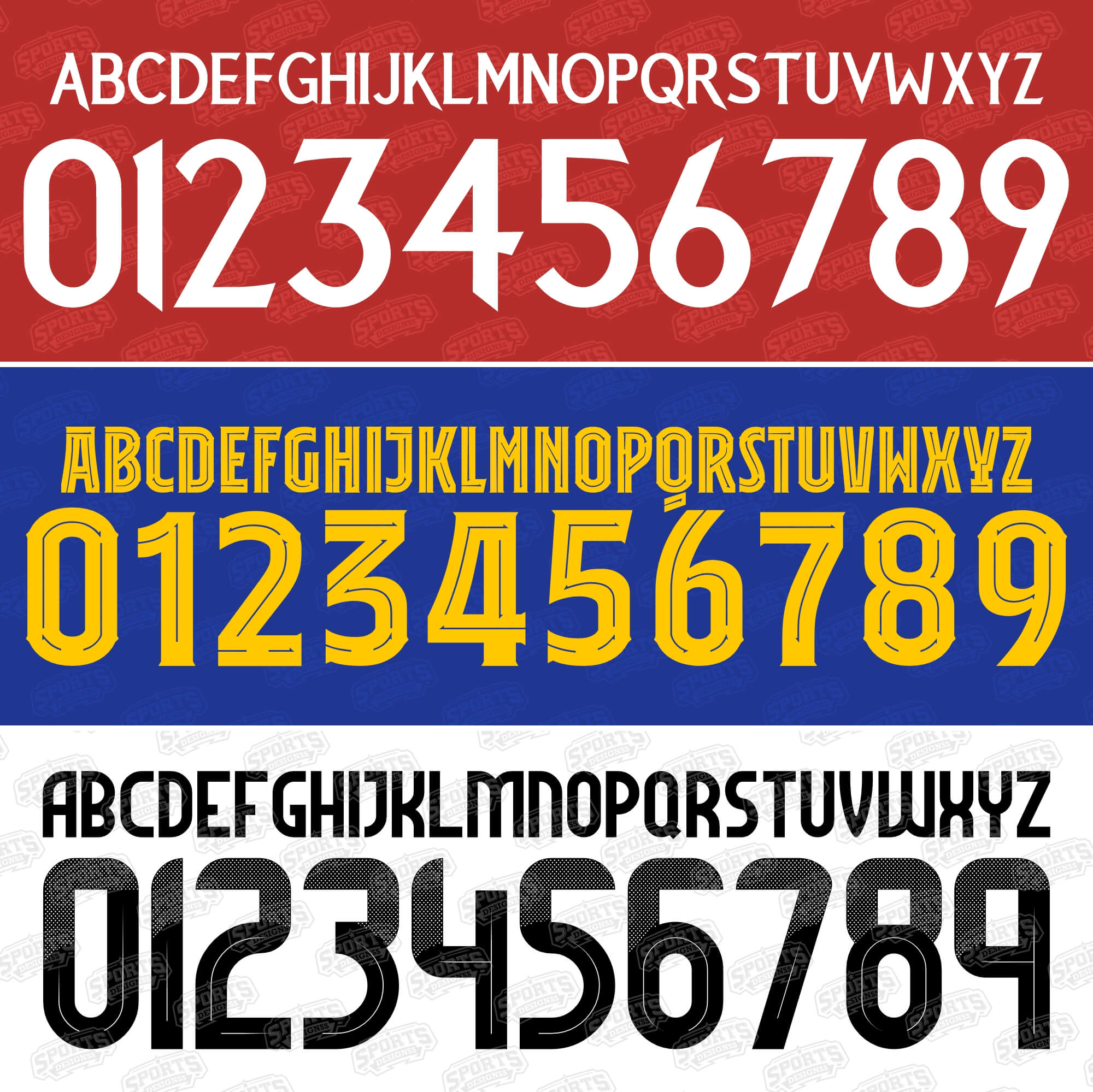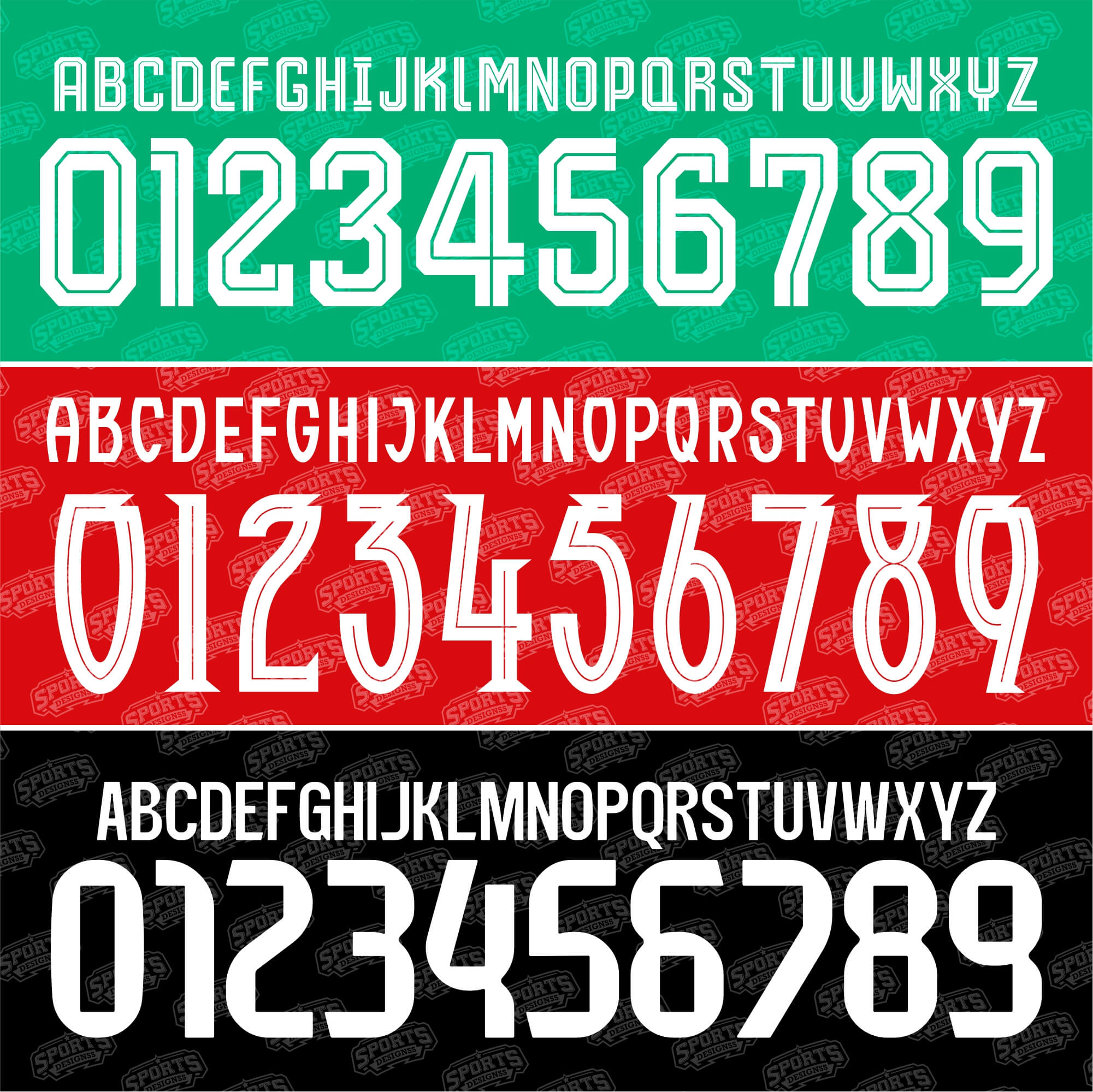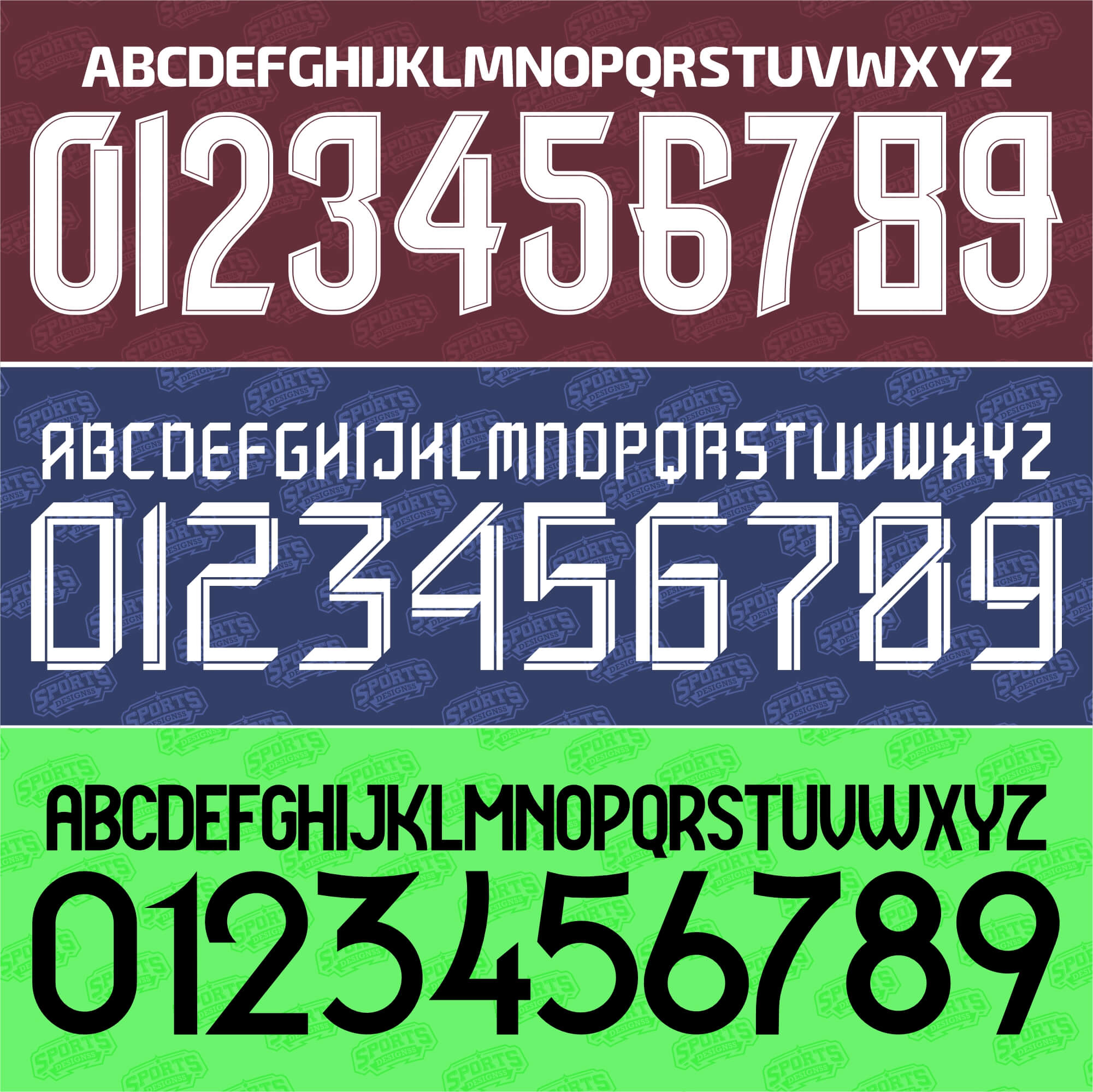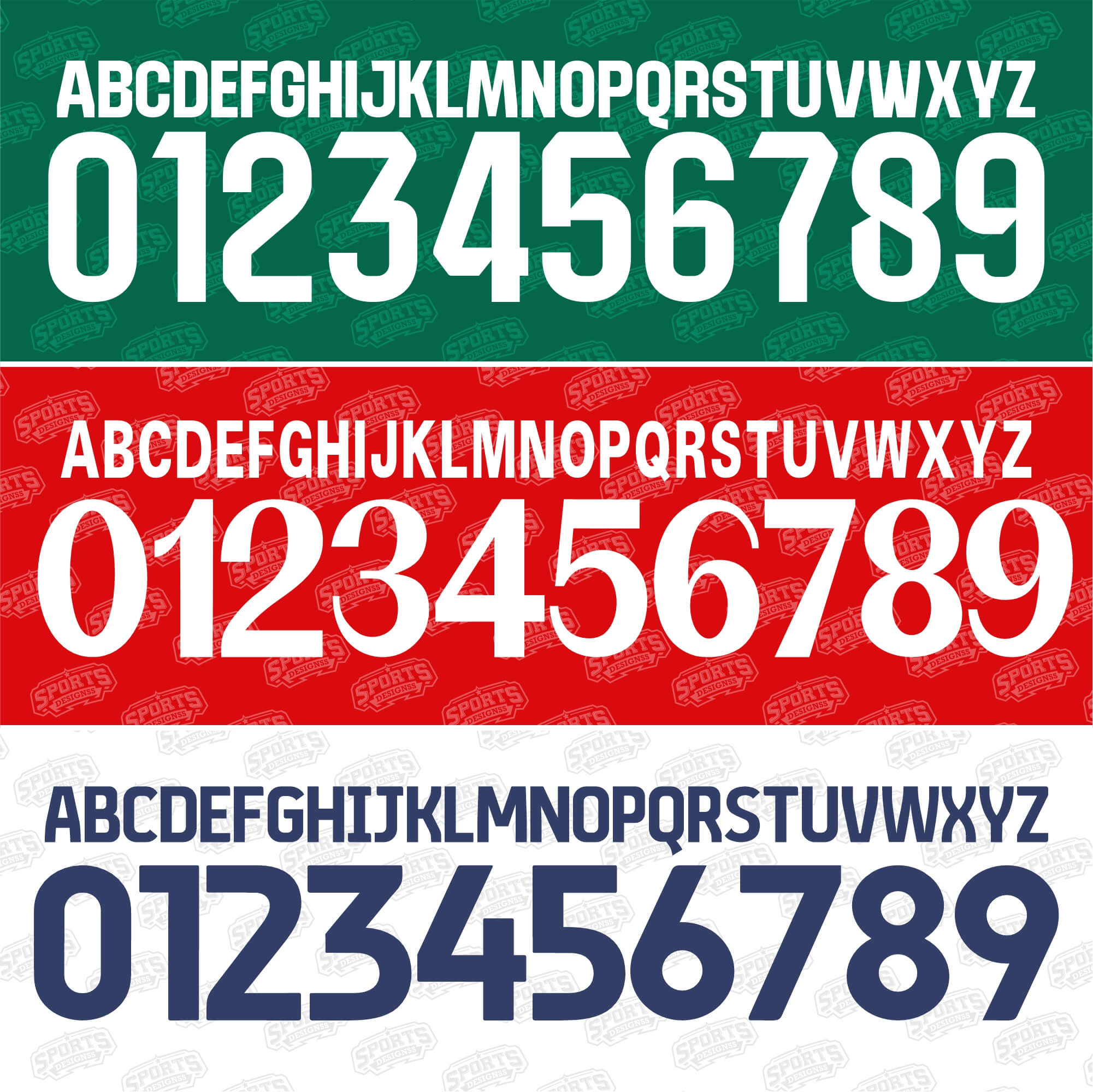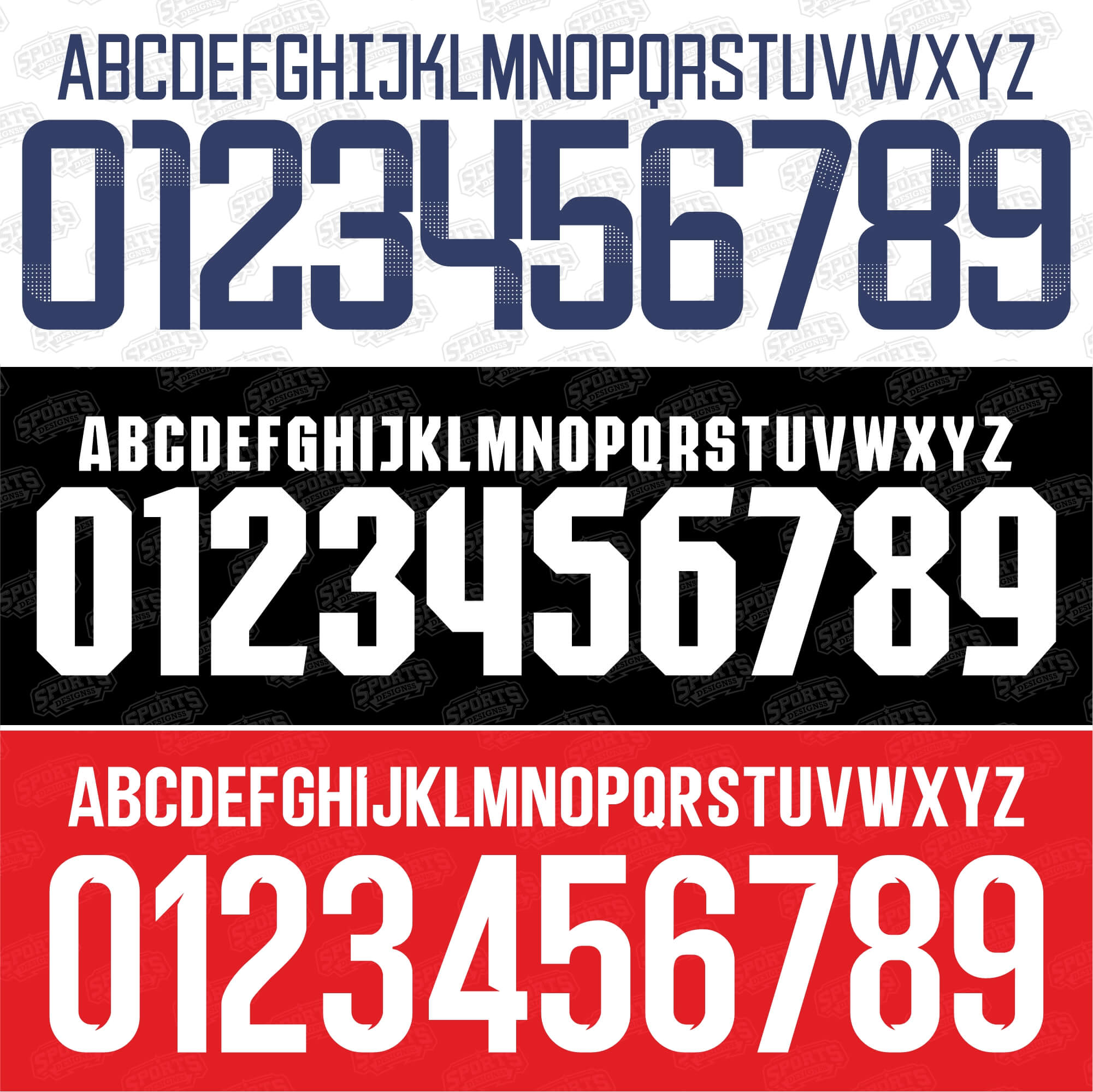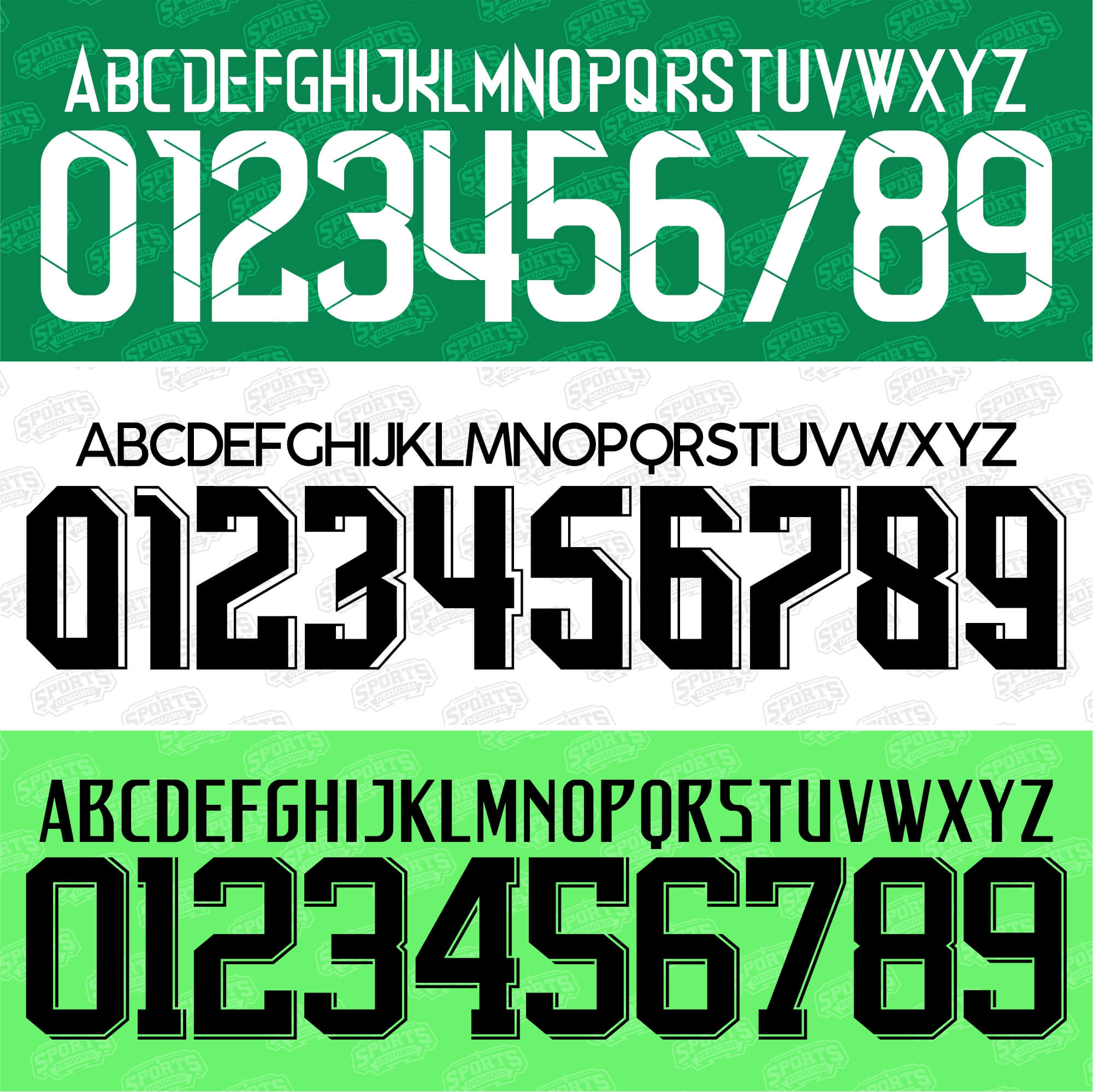
Get 20+ premium soccer fonts (2025-26 edition) in one powerful bundle! Perfect for jersey name numbers, World Cup 2026 shirts, football posters, varsity sports, and digital designs.
Includes fonts inspired by Barcelona, Real Madrid, Manchester United, Arsenal, Ajax, Juventus, Argentina, Portugal, Atletico Madrid, Sporting Lisbon, and more.
Eexclusive bundle of 20+ professional soccer and football fonts (2025-26 editions). Perfect for jersey name numbers, World Cup shirts, club kits, posters, varsity sports designs, and digital downloads, this pack brings together some of the most iconic football-inspired fonts in one collection.
📂 Fonts Included in This Bundle (2025-26 Edition):
This pack includes official-style fonts inspired by top clubs, national teams, and leagues around the world:
• Ferencvaros 2025-26 Football Font
• Ajax UEFA 2025-26 Font
• America Club 2025-26 Font
• Argentina 2025-26 Font
• Arsenal 2025-26 Font
• Aston Villa 2025-26 Font
• Atletico Madrid 2025-26 Font
• Bahamas 2025-26 Football Font
• Barcelona SC 2025-26 Font
• Barcelona 2025-26 Font
• Bolivar 2025-26 Font
• Brighton 2025-26 Font
• Cambodia National 2025-26 Font
• Deportes Tolima 2025-26 Font
• EFL 2025-26 Football Font
• Feyenoord 2025-26 Font
• Independiente 2025-26 Font
• Indonesia 2025-26 Font
• Juventus Arabic 2025-26 Font
• Manchester United 2025-26 Font
• Olimpia 2025-26 Football Font
• Portugal 2025-26 Font
• Real Madrid 2025-26 Font
• Sporting Lisbon 2025-26 Font
• Soccer Jersey Fonts – Shirt name & number styles
• World Cup 2026 & Club Competitions
• Football Posters, T-Shirts, & Merchandise
• College & Varsity Sports Designs
• Digital Designers & Cricut / Silhouette Projects
• Covers clubs, national teams, and league styles
• Perfect for football fans, graphic designers, and merch creators